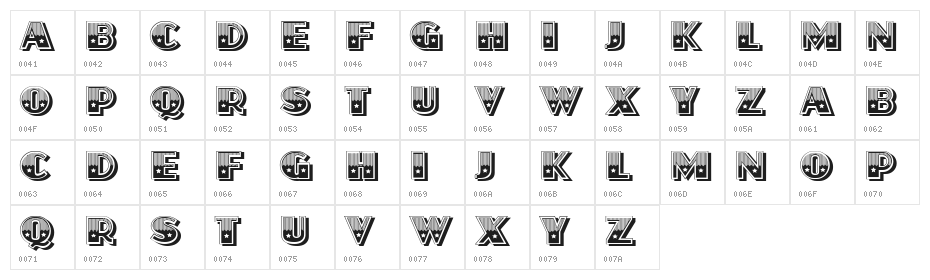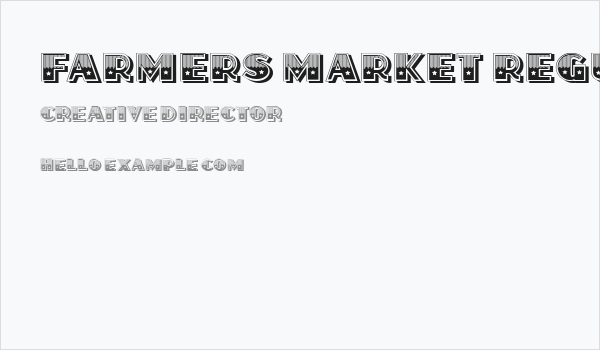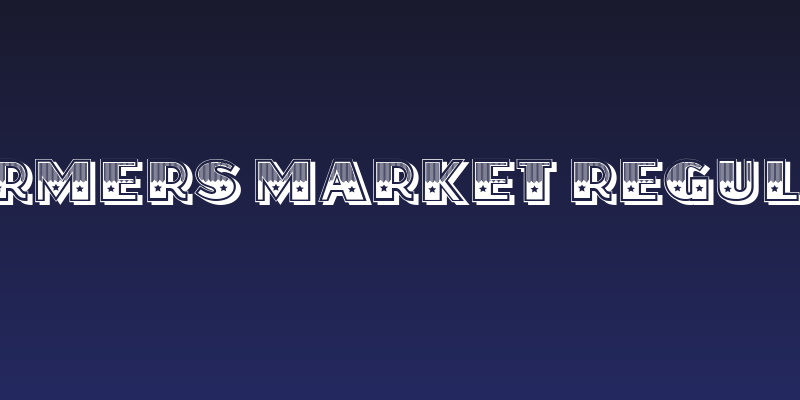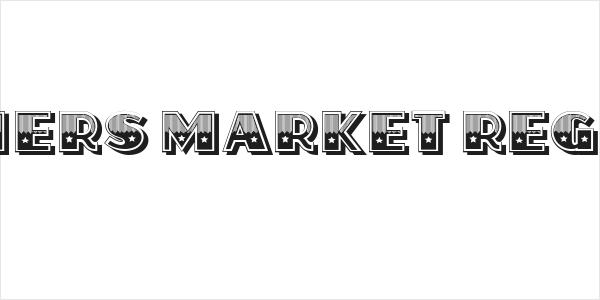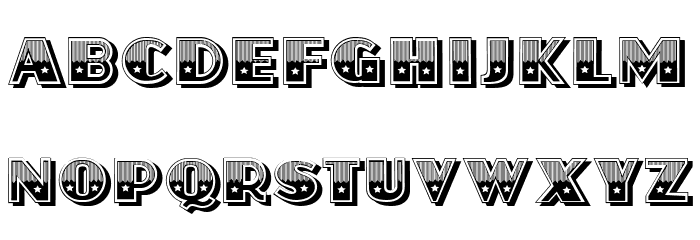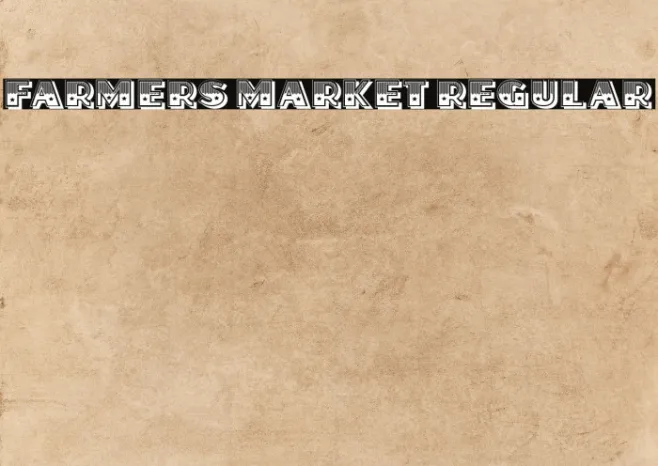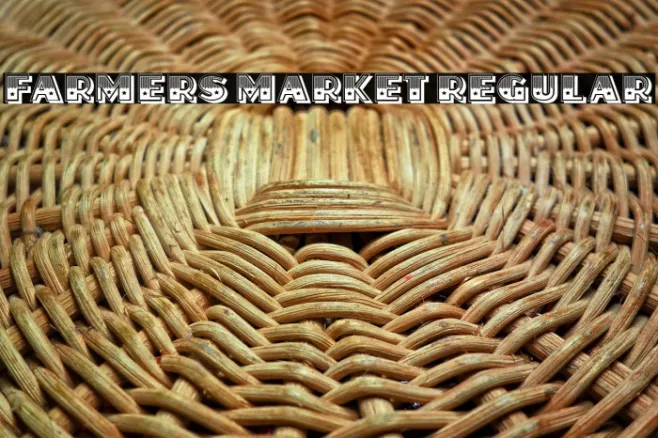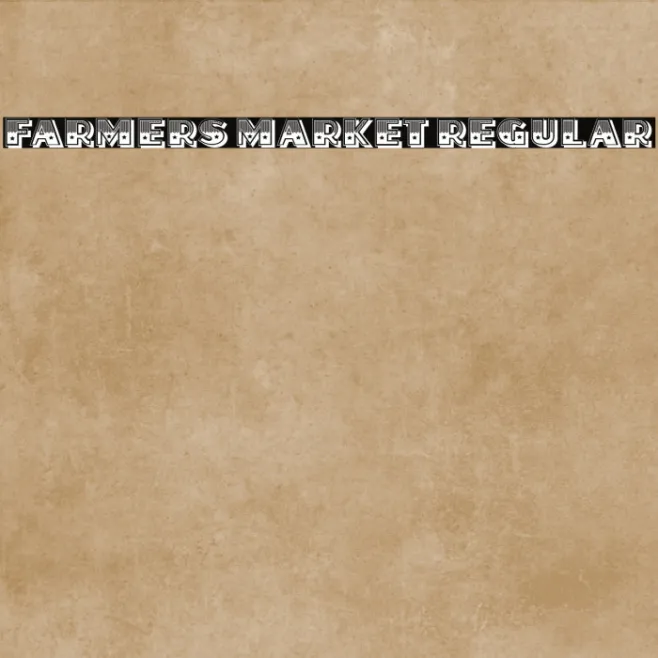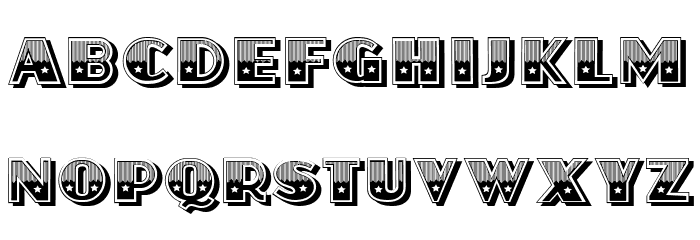
Farmers Market Regular Font
Farmers Market Regular Description
This font features a bold, decorative style with a distinct vintage flair. Each character is adorned with stars and stripes, giving it a playful yet nostalgic appearance. The letters are outlined with a thick border, enhancing their visibility and impact. The design incorporates a mix of solid and striped patterns within the characters, adding depth and texture. This font is ideal for projects that require a touch of Americana or a retro aesthetic. Its unique style makes it stand out, perfect for eye-catching headlines or themed designs.
| Proposed Projects | Ideal for posters, signage, branding for retro-themed events, or any project needing a vintage touch. |